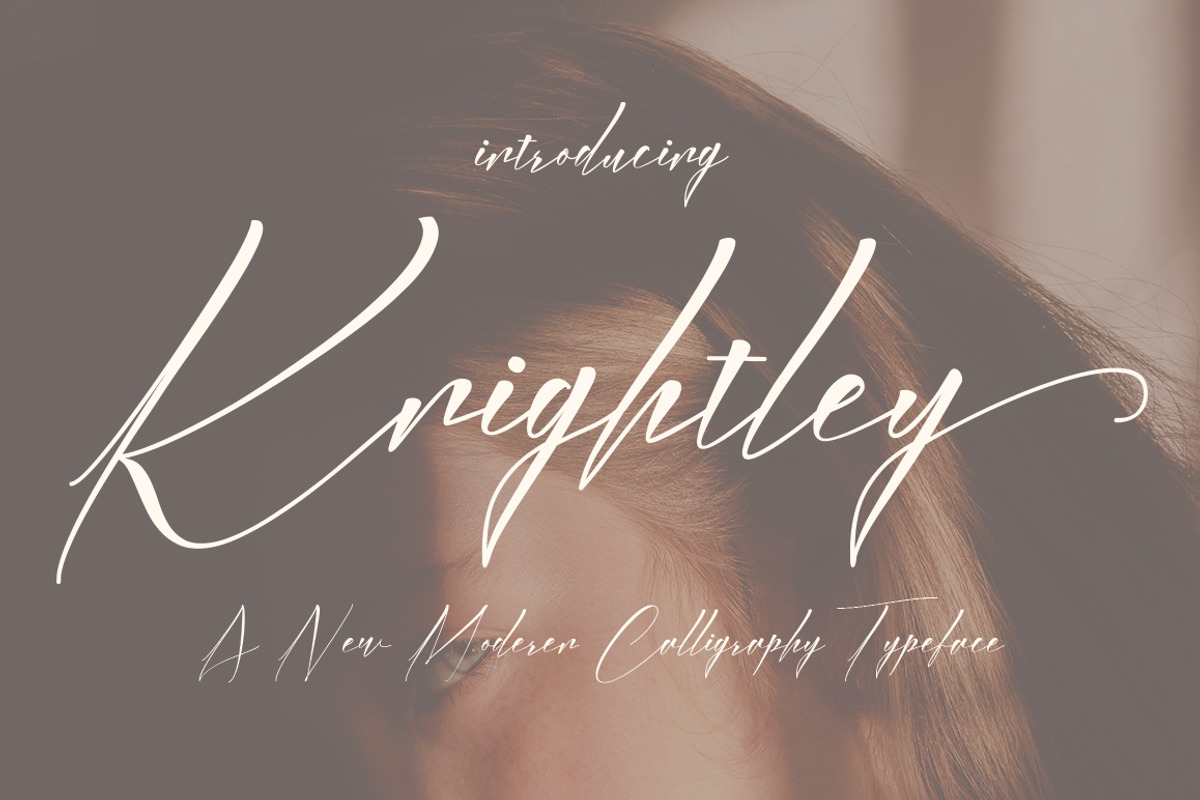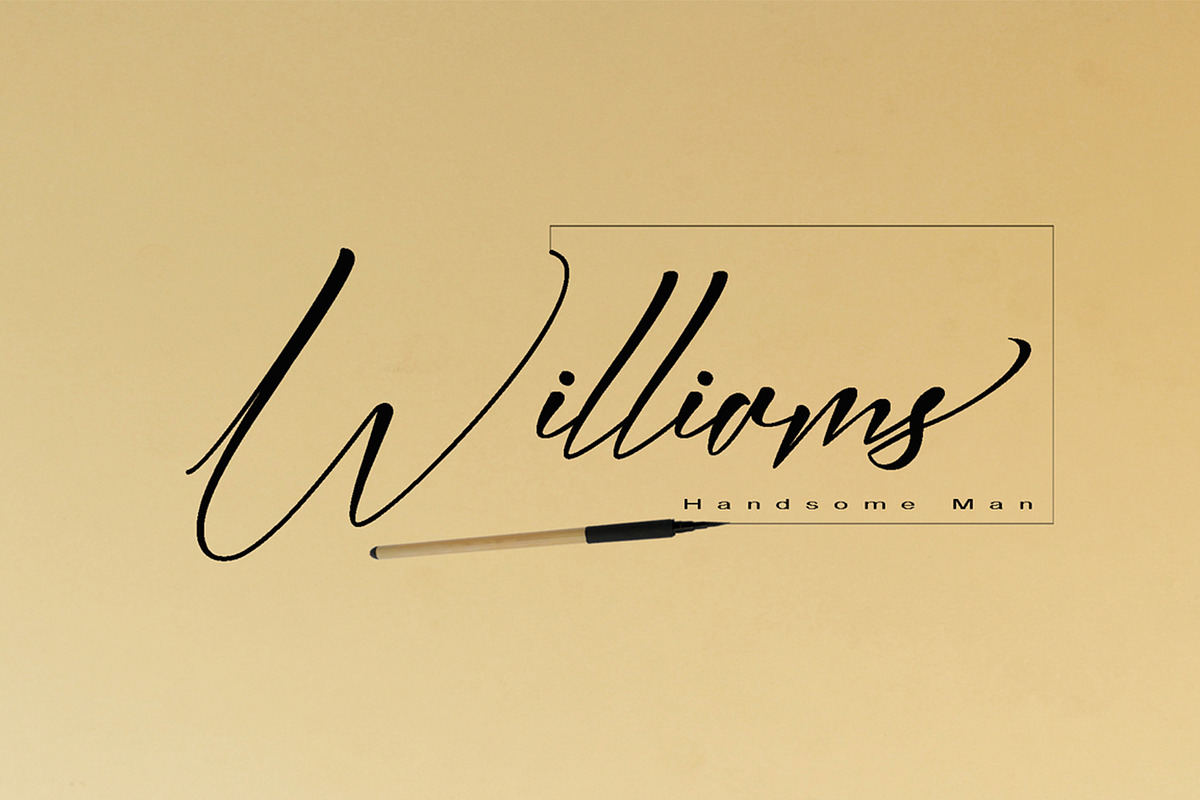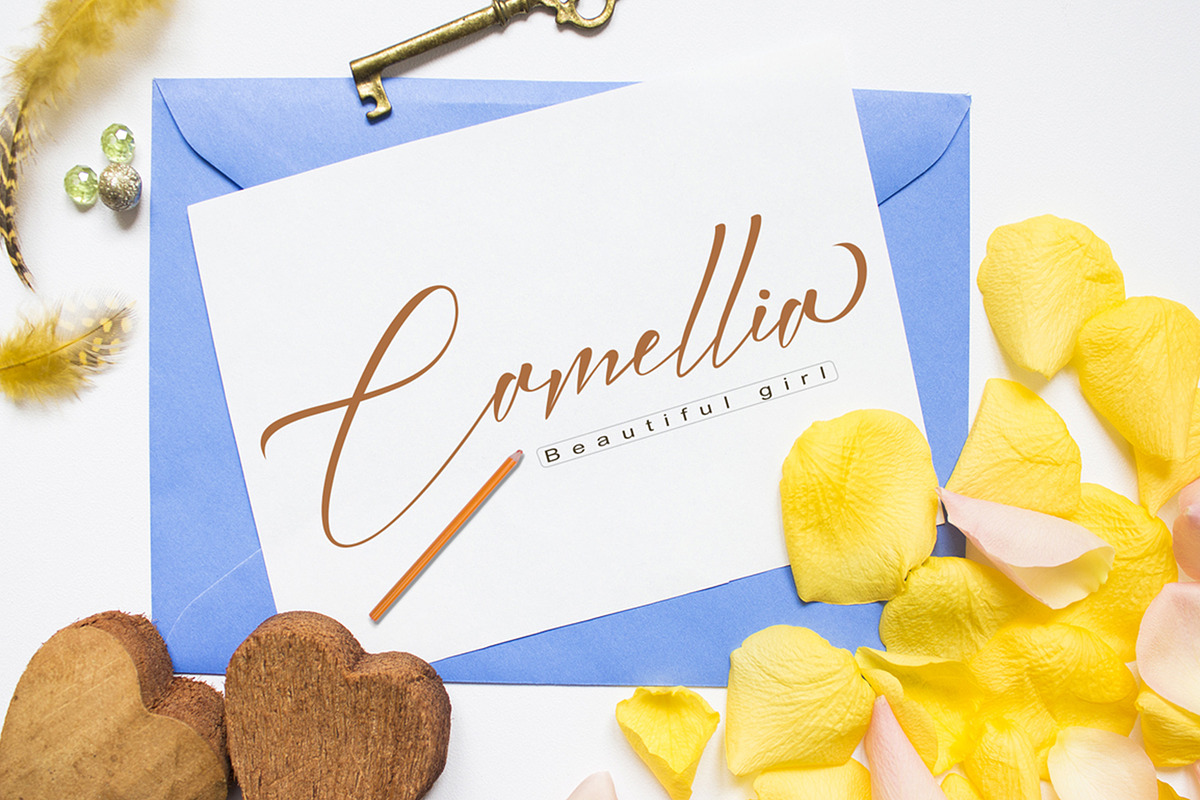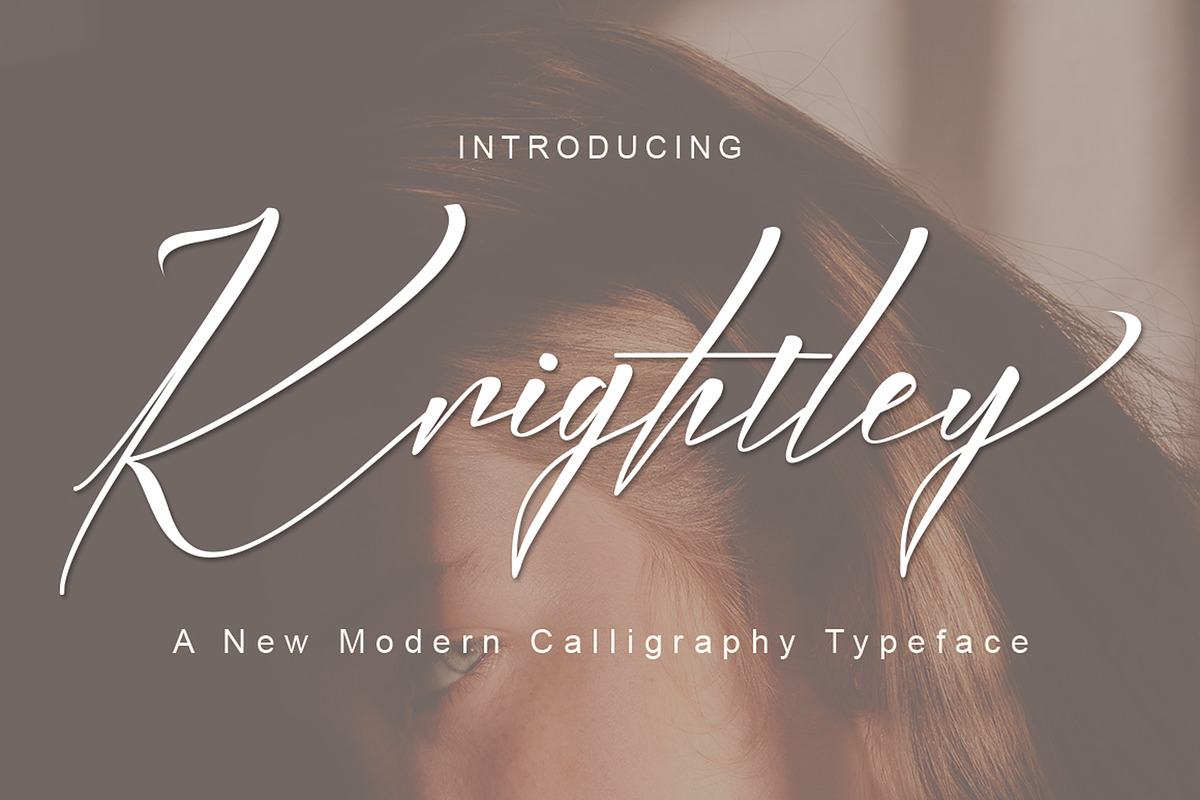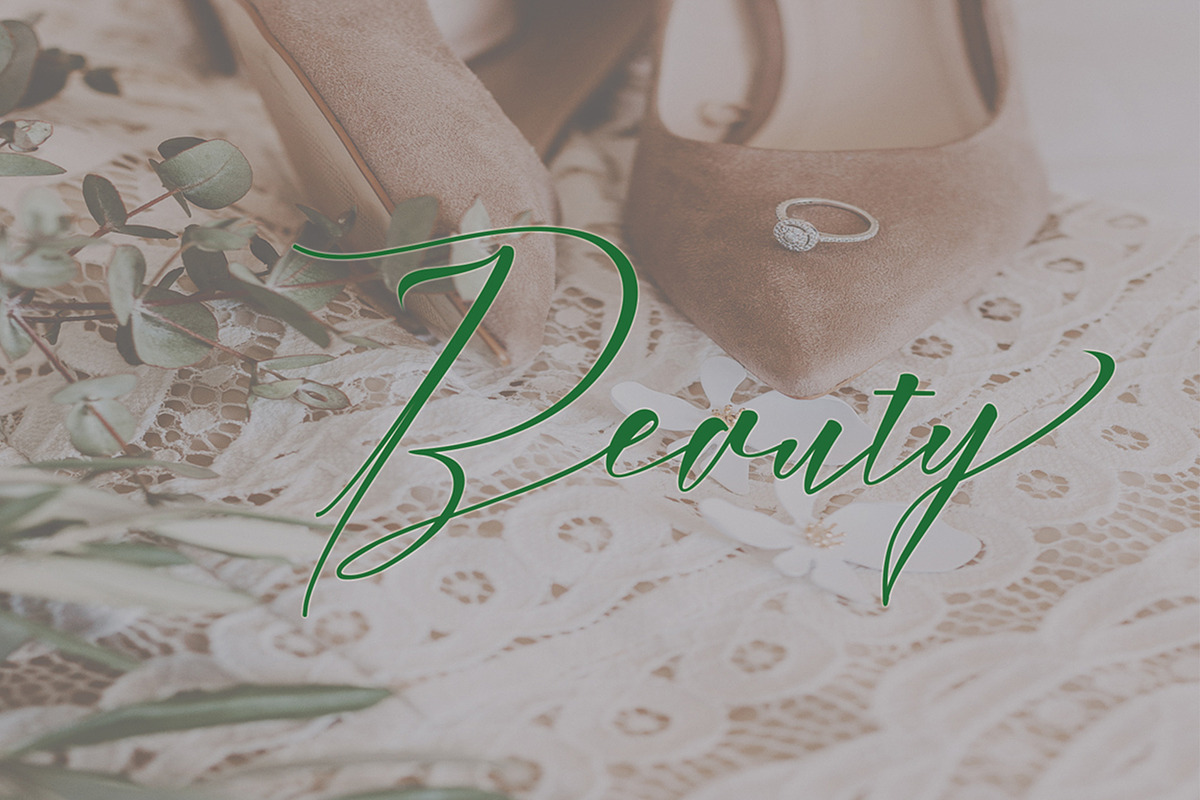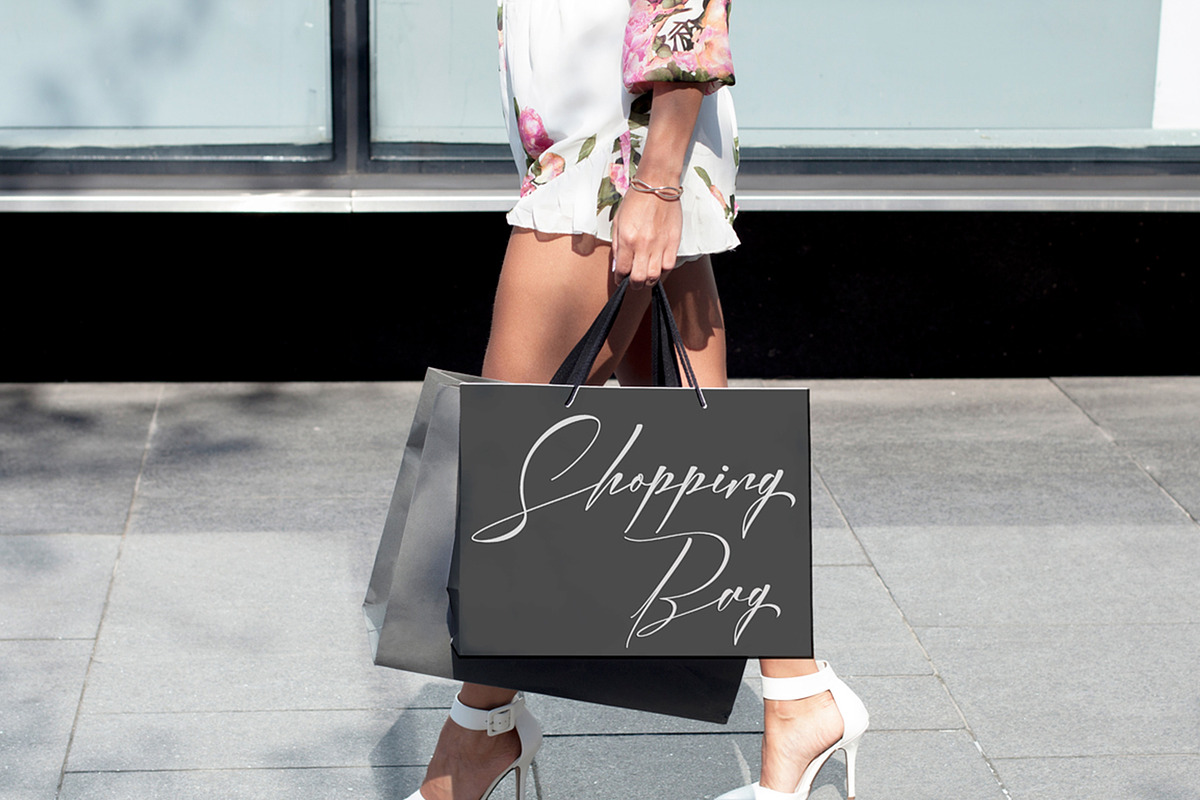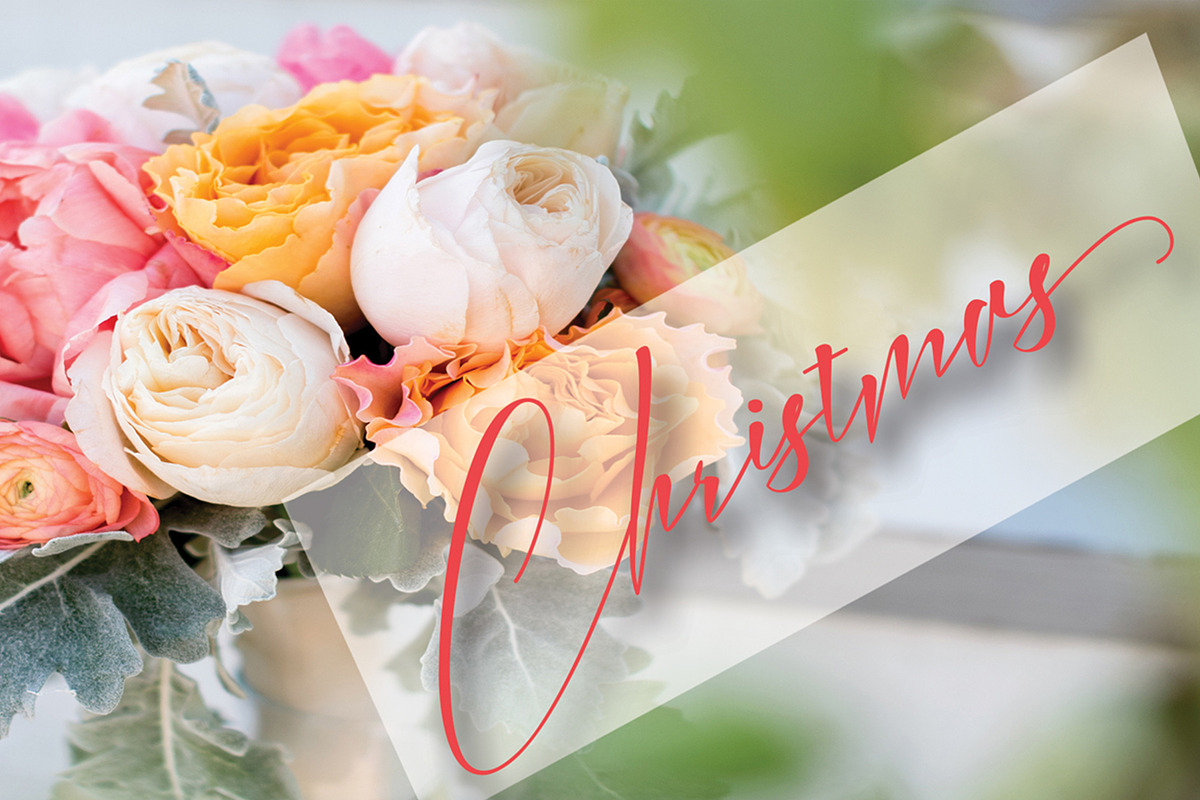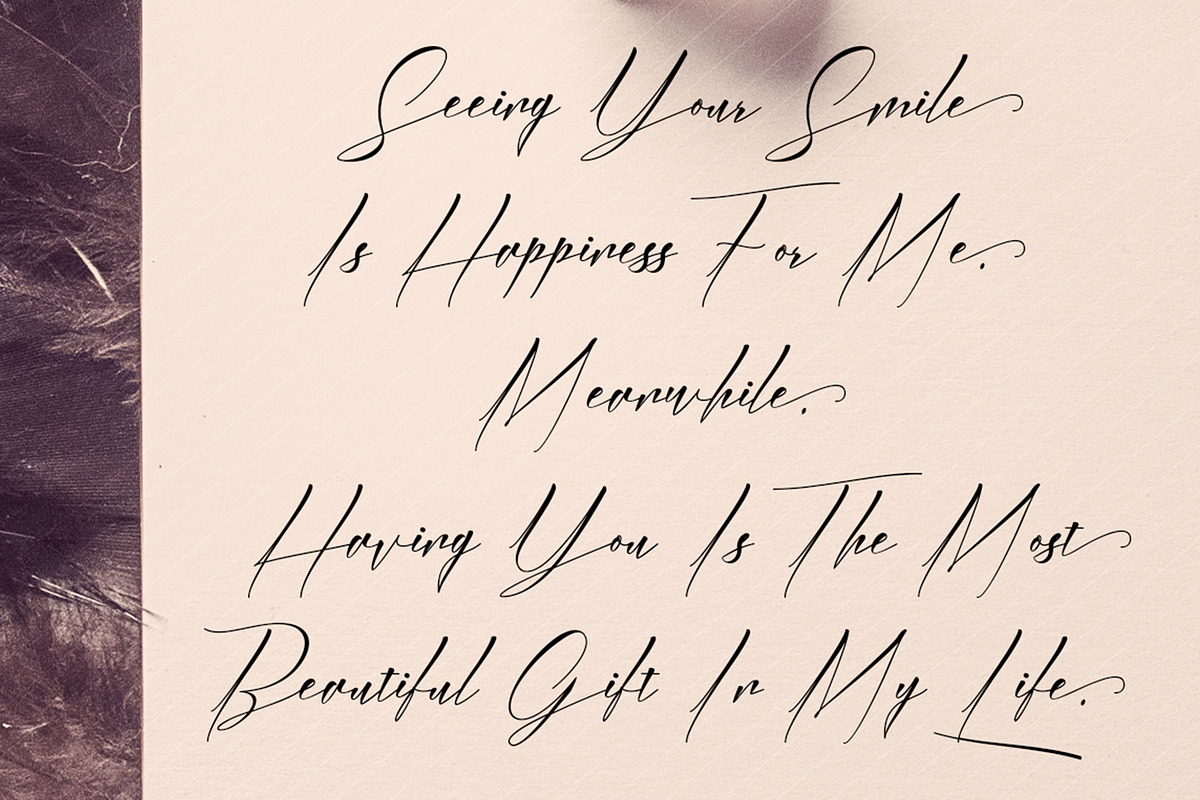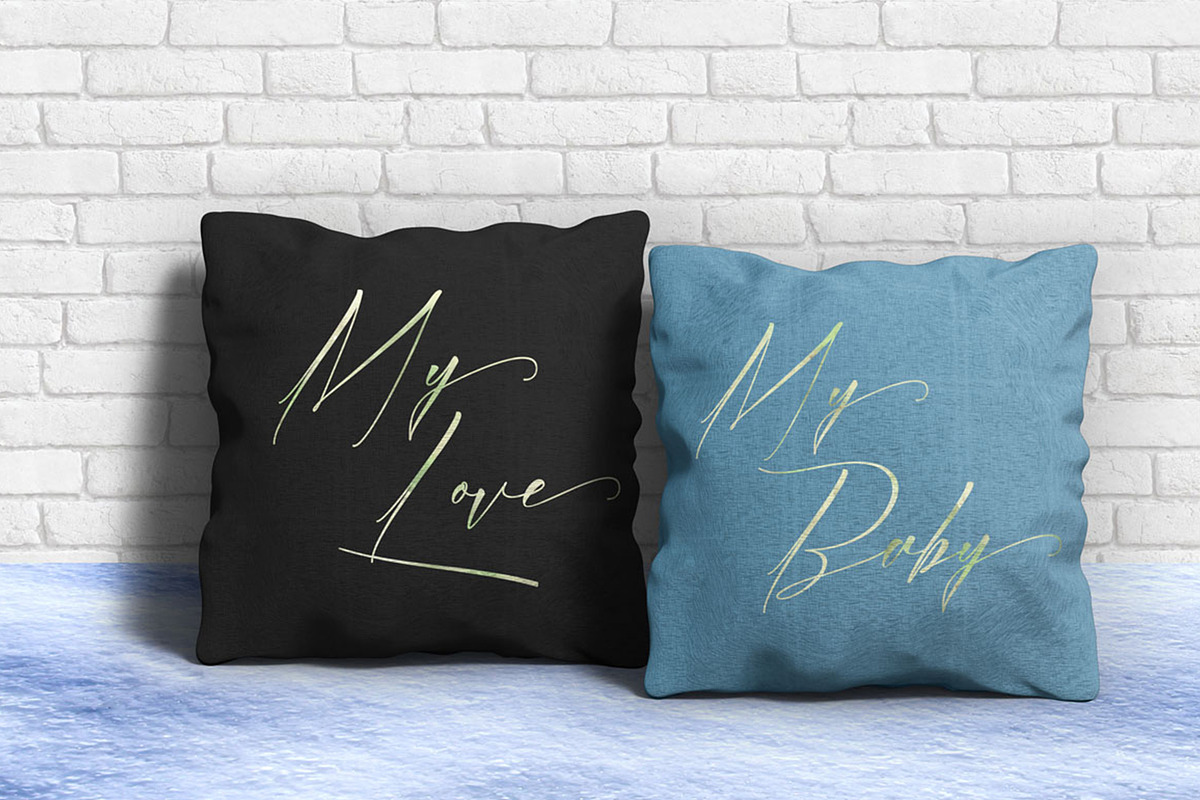
Knightley
Knightley is an elegant calligraphy and natural script style.
Knightley Modern Calligraphy is perfect for wedding designs, shared moments, branding projects, logos, social media posts, advertisements, product packaging, product design, labels, photography, watermarks, invitations, stationery, and any project that requires a handwritten feel.
a font that made the hand by having the character up and down like a dancer. Knightley has a very unique style of calligraphy, it is very suitable for use in the work of modern design.